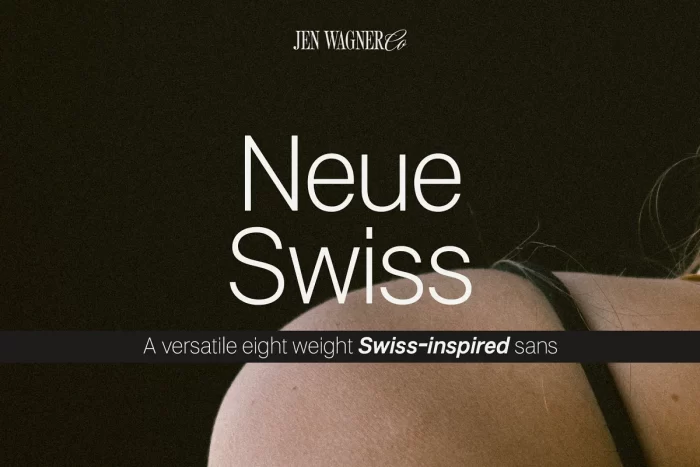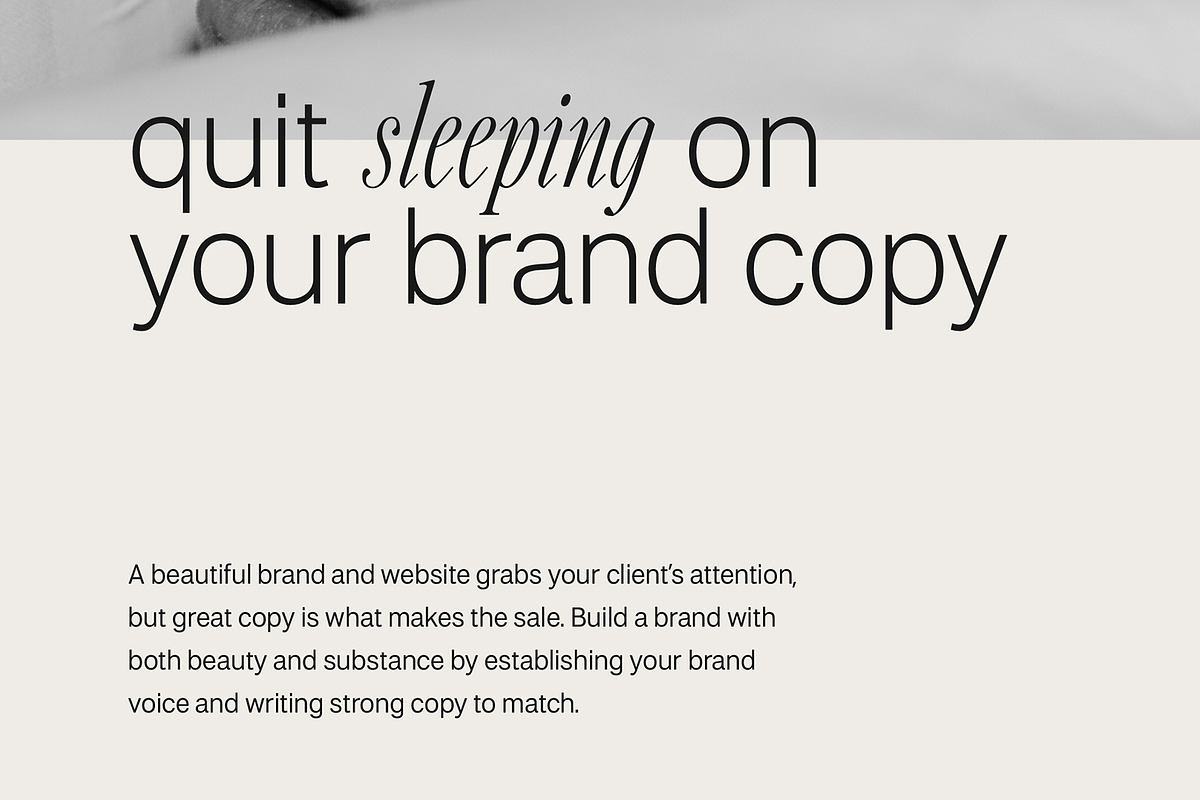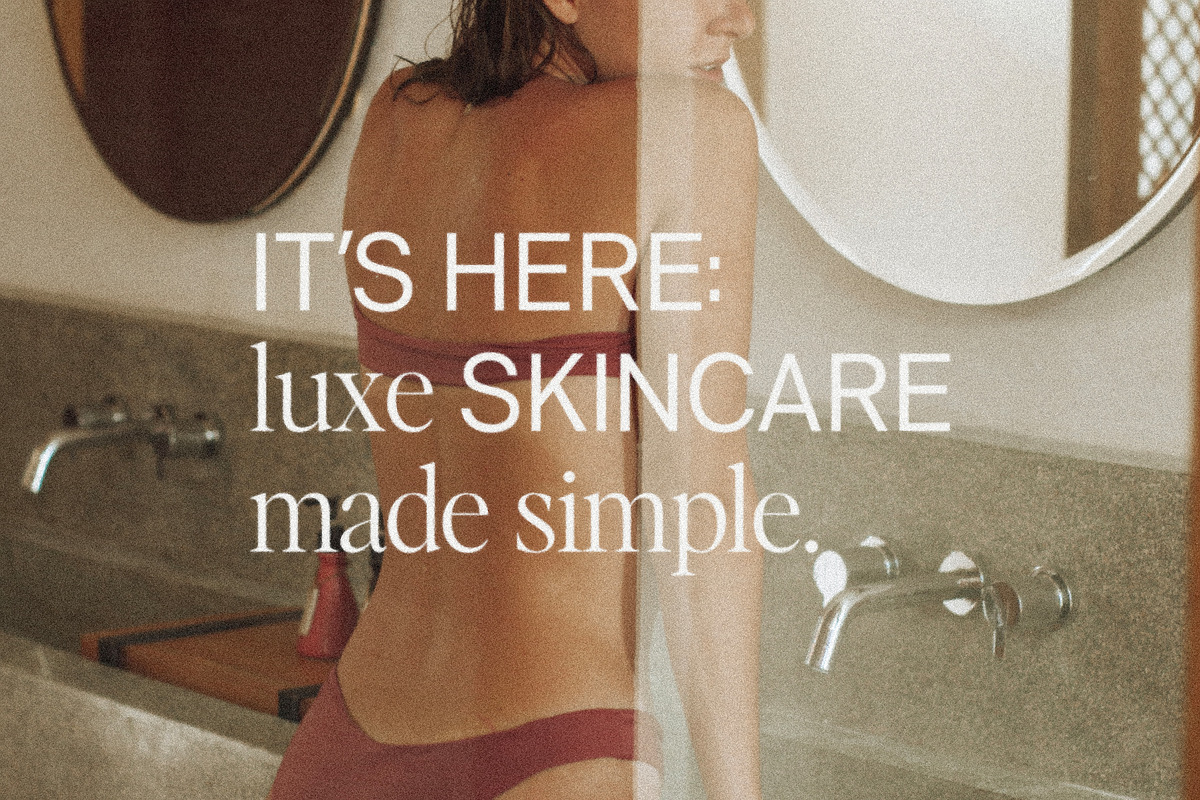
Neue Swiss is a commanding yet minimalistic typeface that effortlessly adapts to any design context. Its contemporary lines and undeniable versatility make this 8-weight, 16-font typeface a designer’s essential, breathing new life into any creative project. Neue Swiss is designed to be an easy go-to for branding, web, and print design projects.
Each form is pared down to its essentials, so it’s extremely versatile and can blend in or stand out as much as you choose.
It’s versatile enough to be used on its own, or paired as you see below with Nautica or Altesse Std (free with Adobe Fonts subscription).